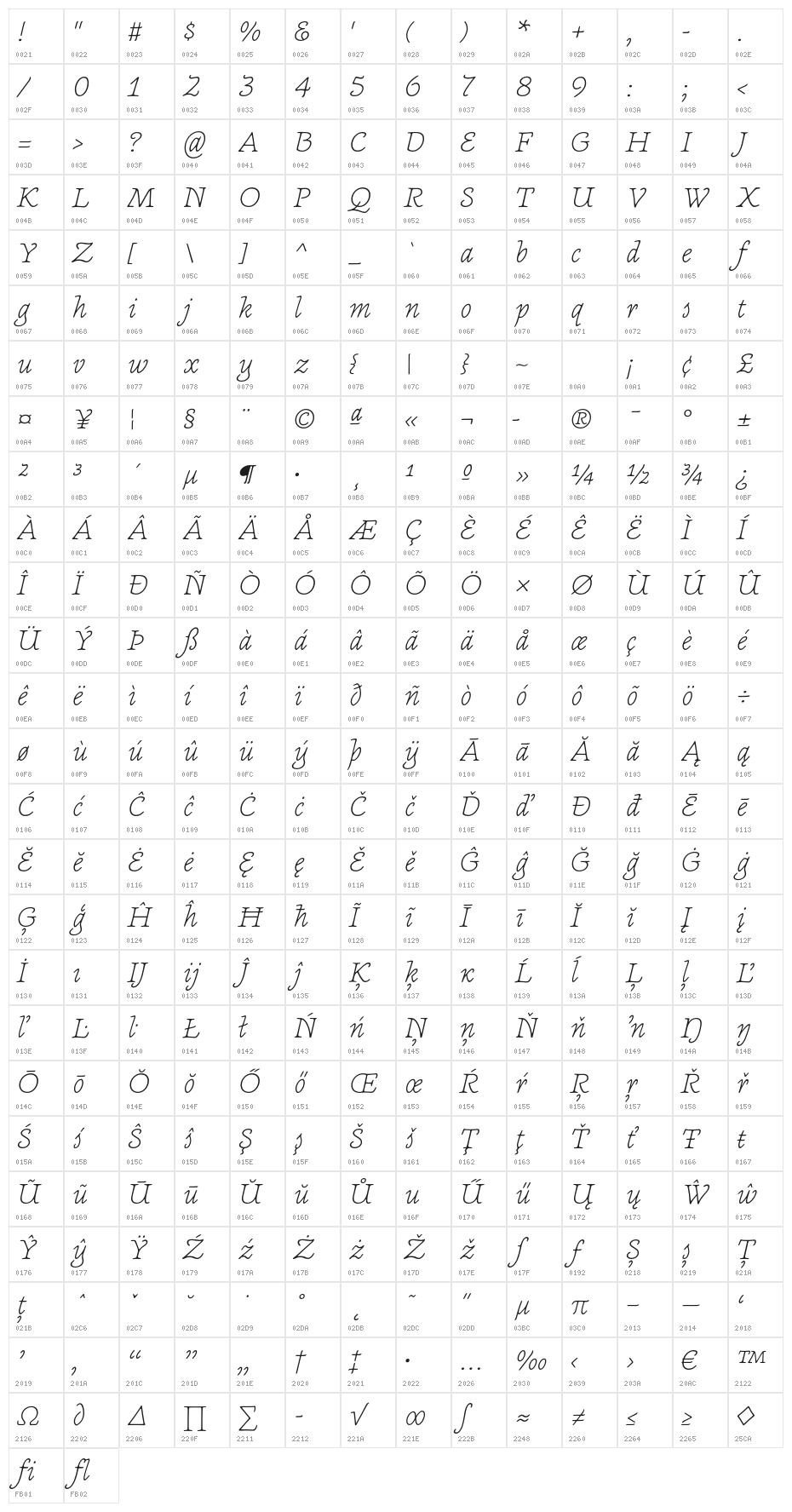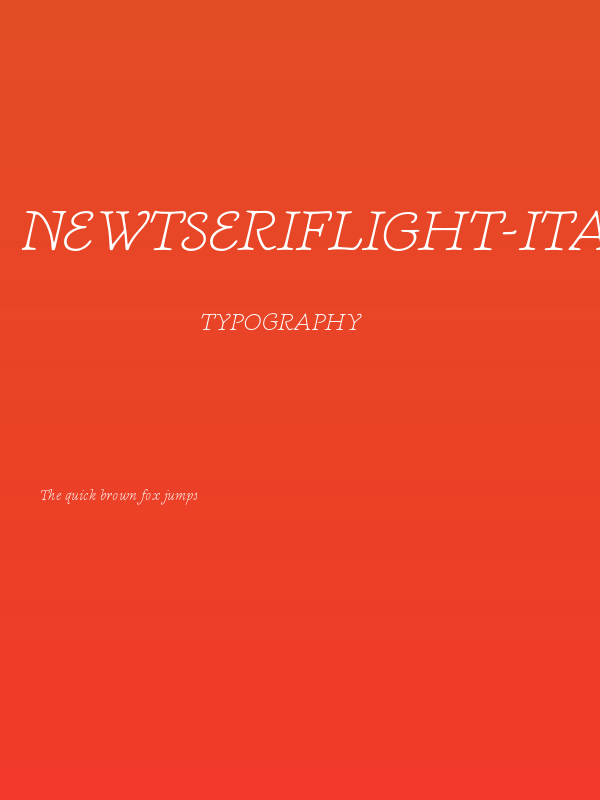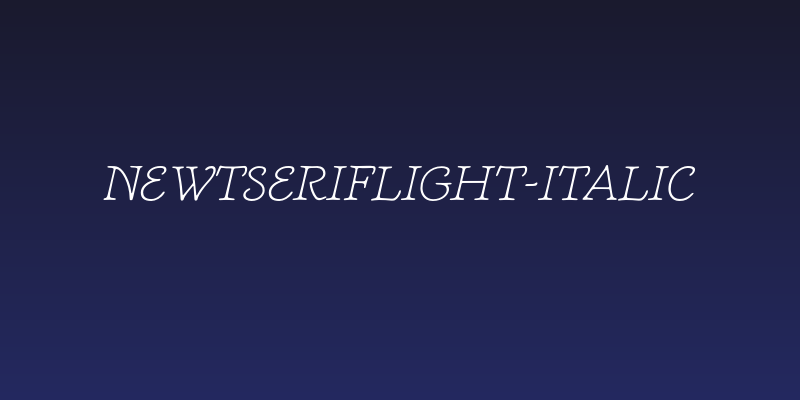
NewtSerifLight-Italic Font
NewtSerifLight-Italic Description
This font features a classic serif design with an elegant and flowing italic style. The characters are gracefully slanted, adding a sense of movement and sophistication. The serifs are subtle, enhancing readability while maintaining a refined appearance. The strokes are light, contributing to a delicate and airy feel. The uppercase letters stand tall with a slight curvature, while the lowercase letters exhibit a smooth, cursive-like quality. Numerals are clear and consistent, and the special characters blend seamlessly with the overall design. This font exudes a timeless charm, suitable for conveying elegance and tradition.
| Use Case | Headlines, Invitations, Branding |
| Proposed Projects | Ideal for wedding invitations, formal event programs, elegant branding, and classic book covers. |